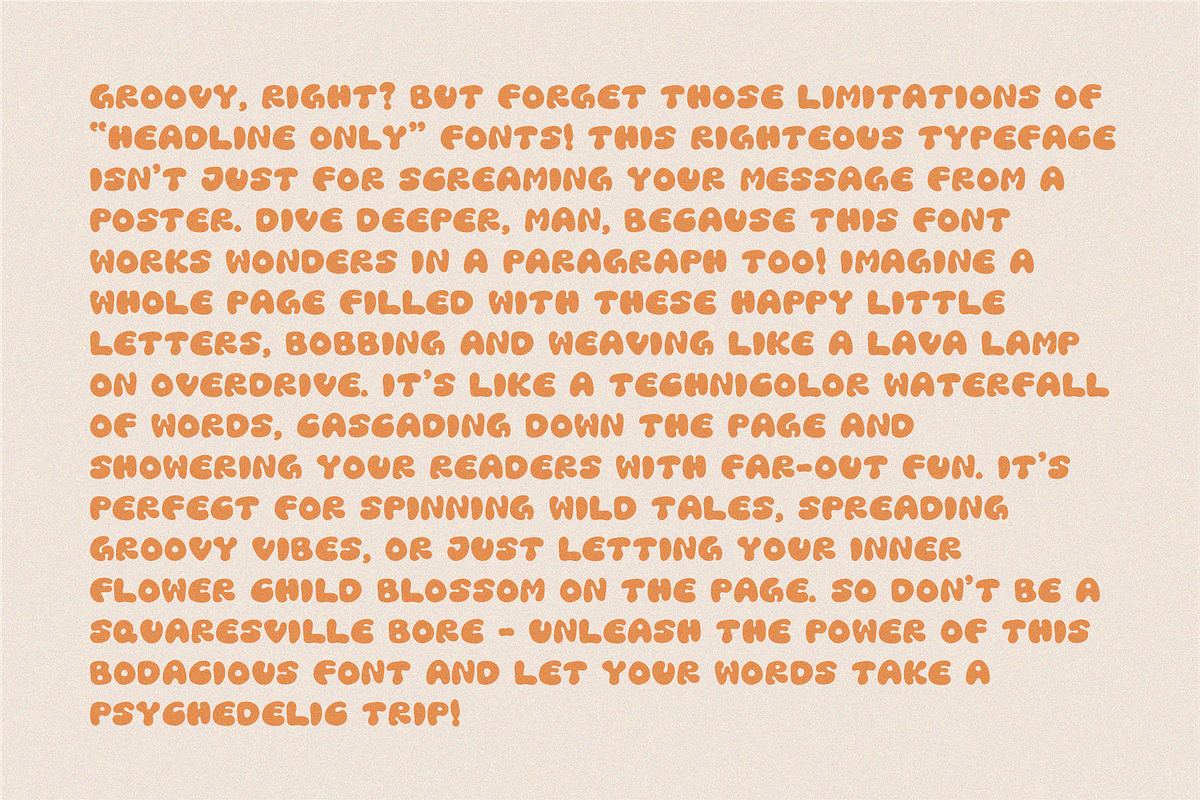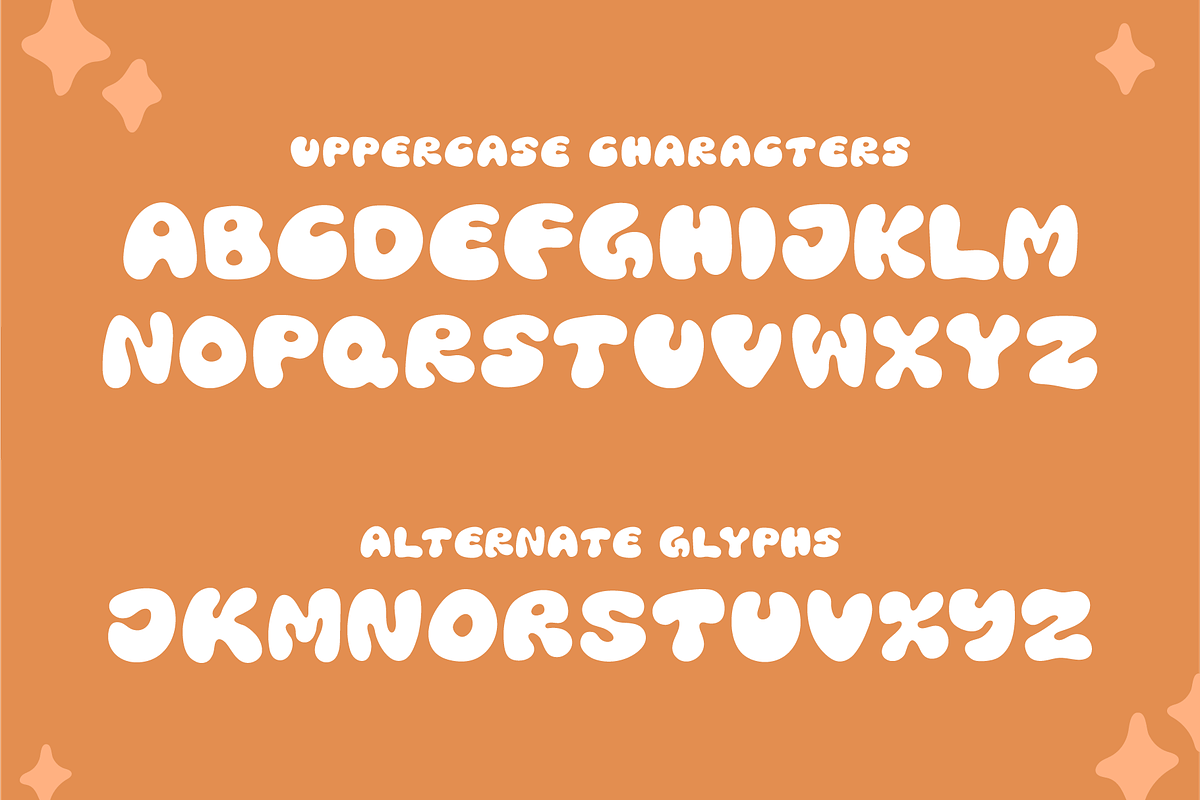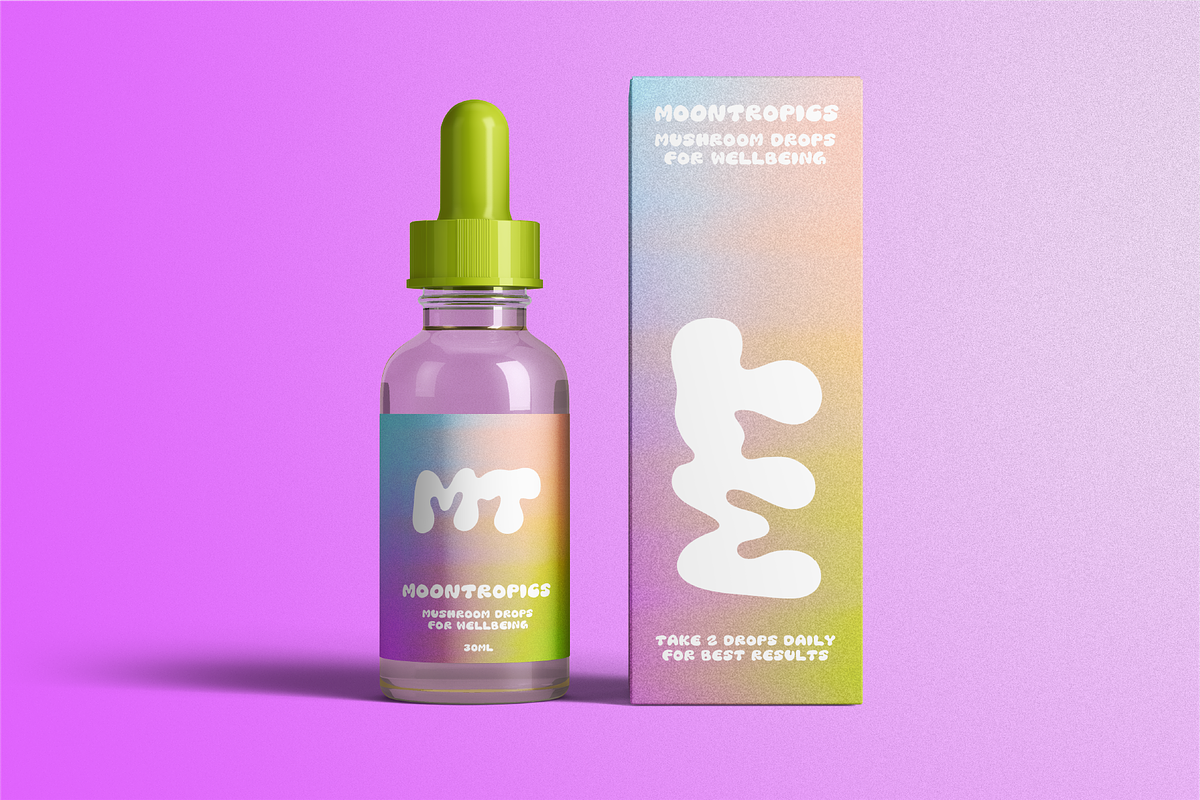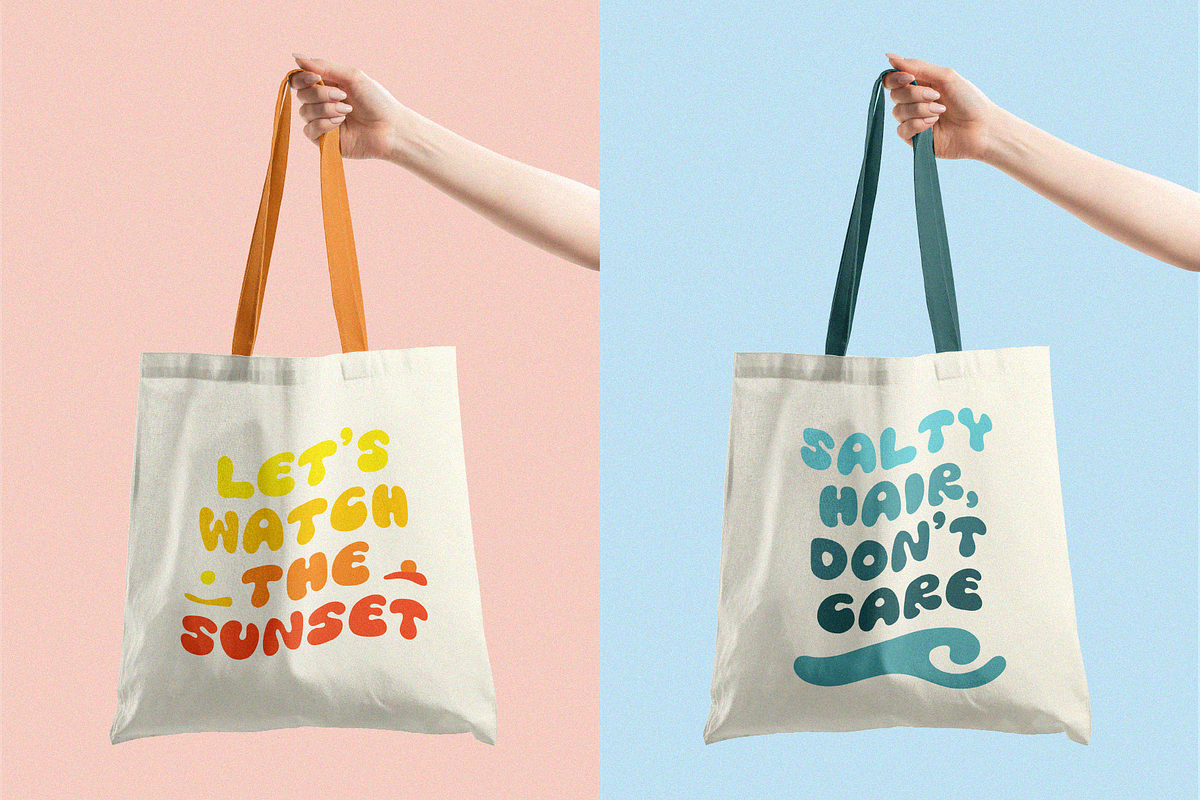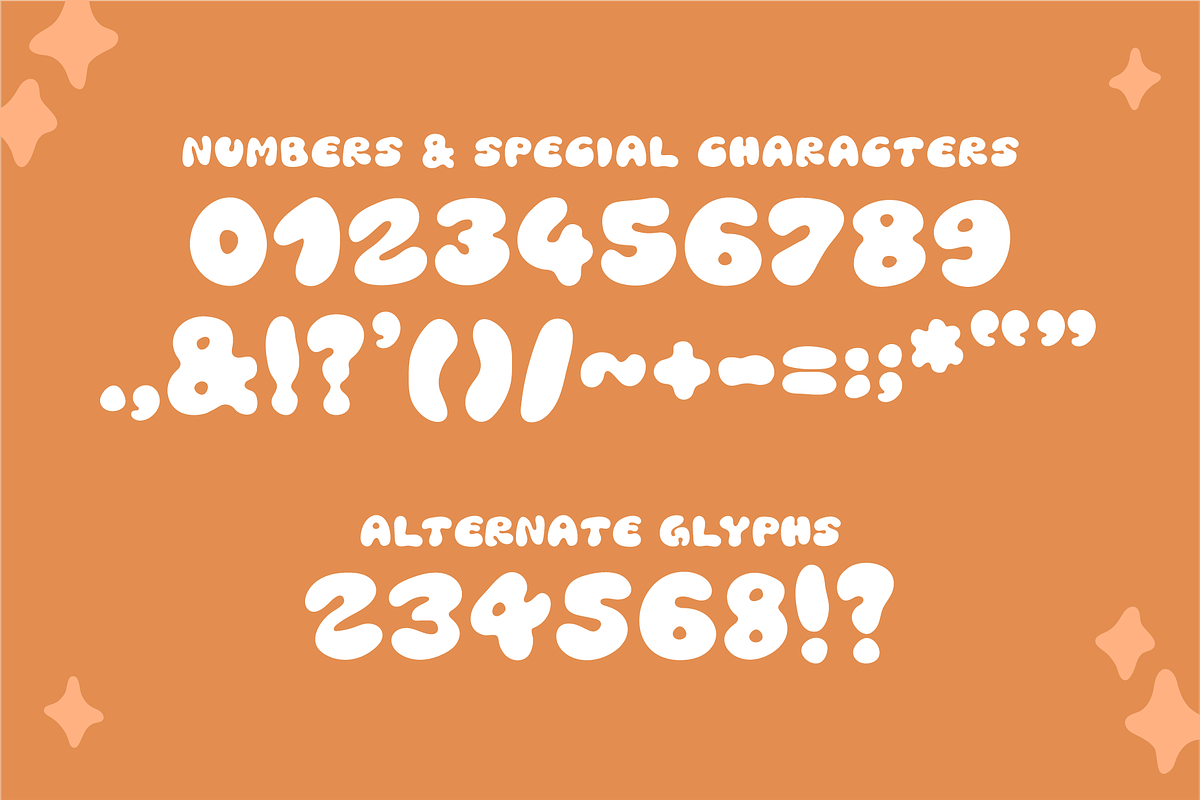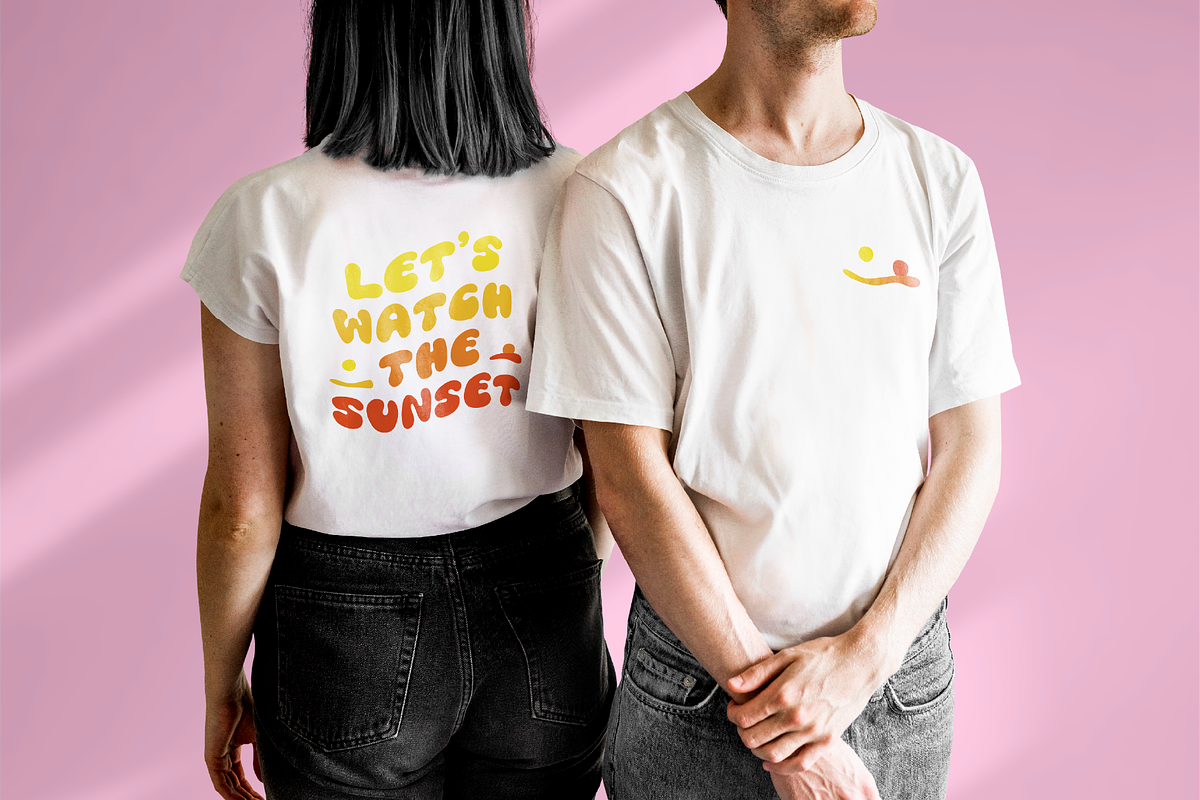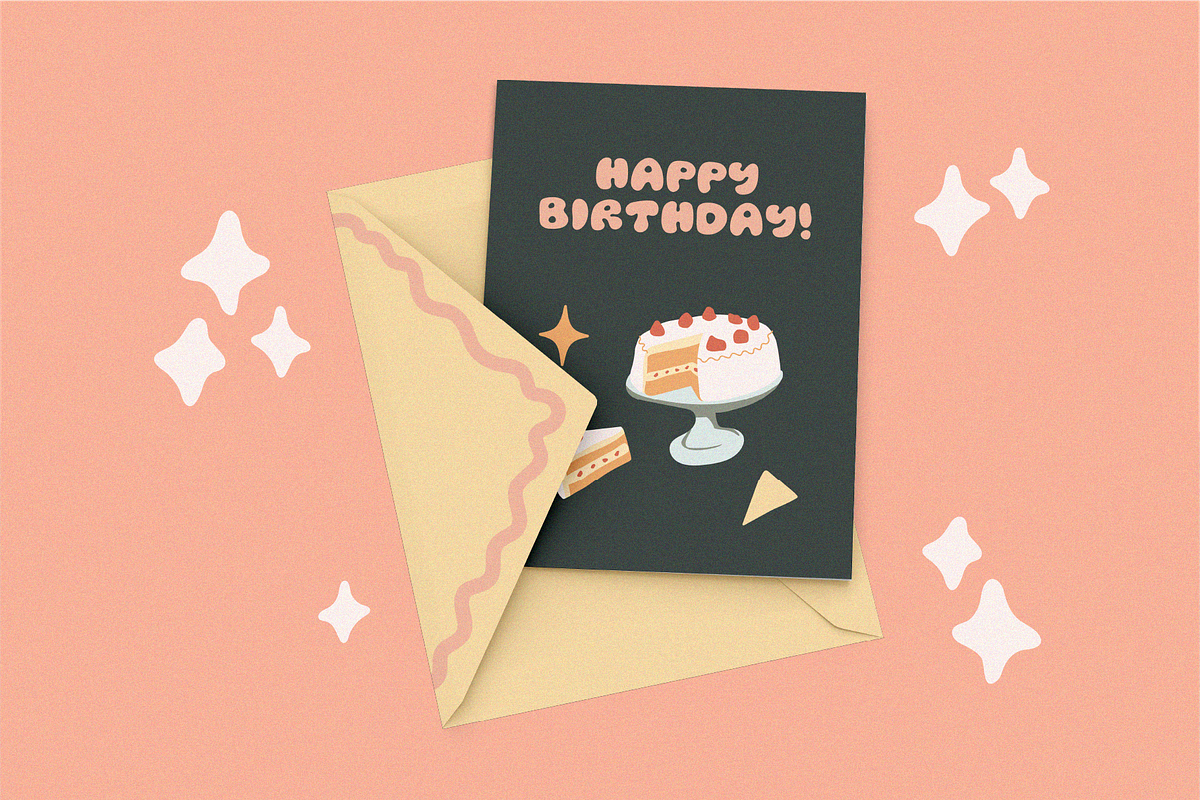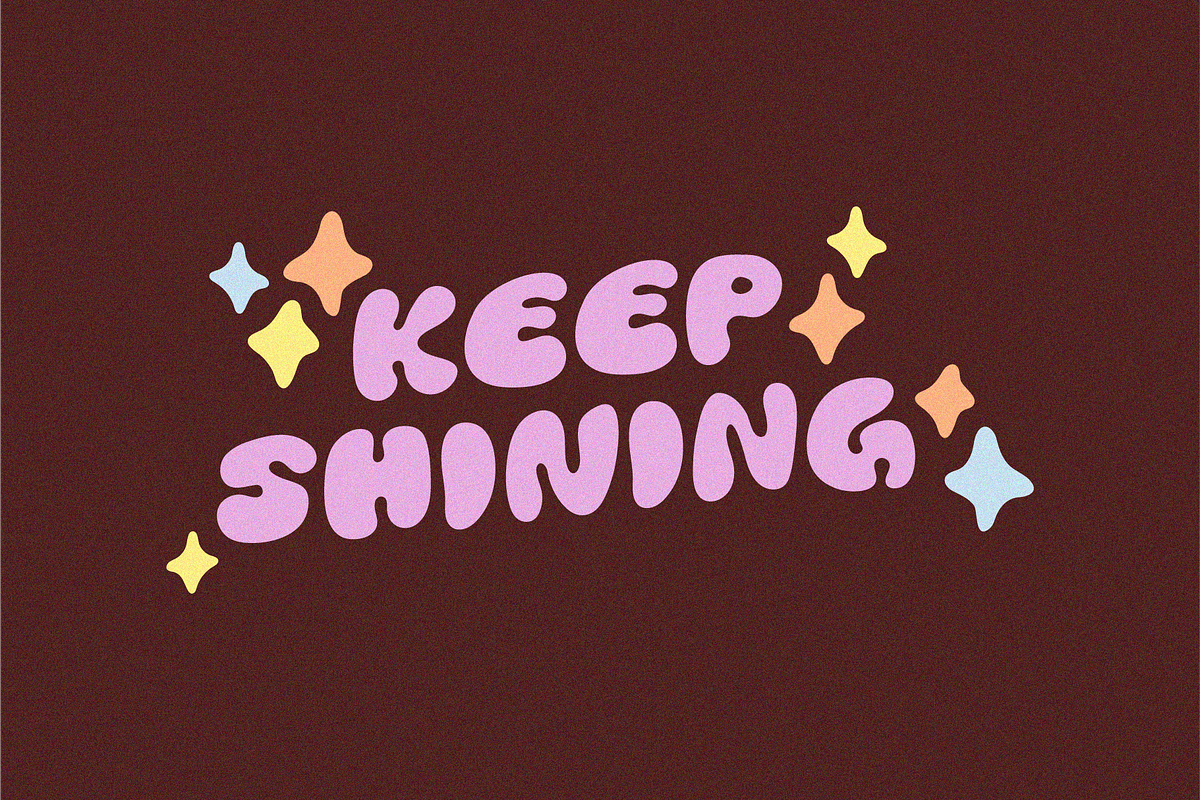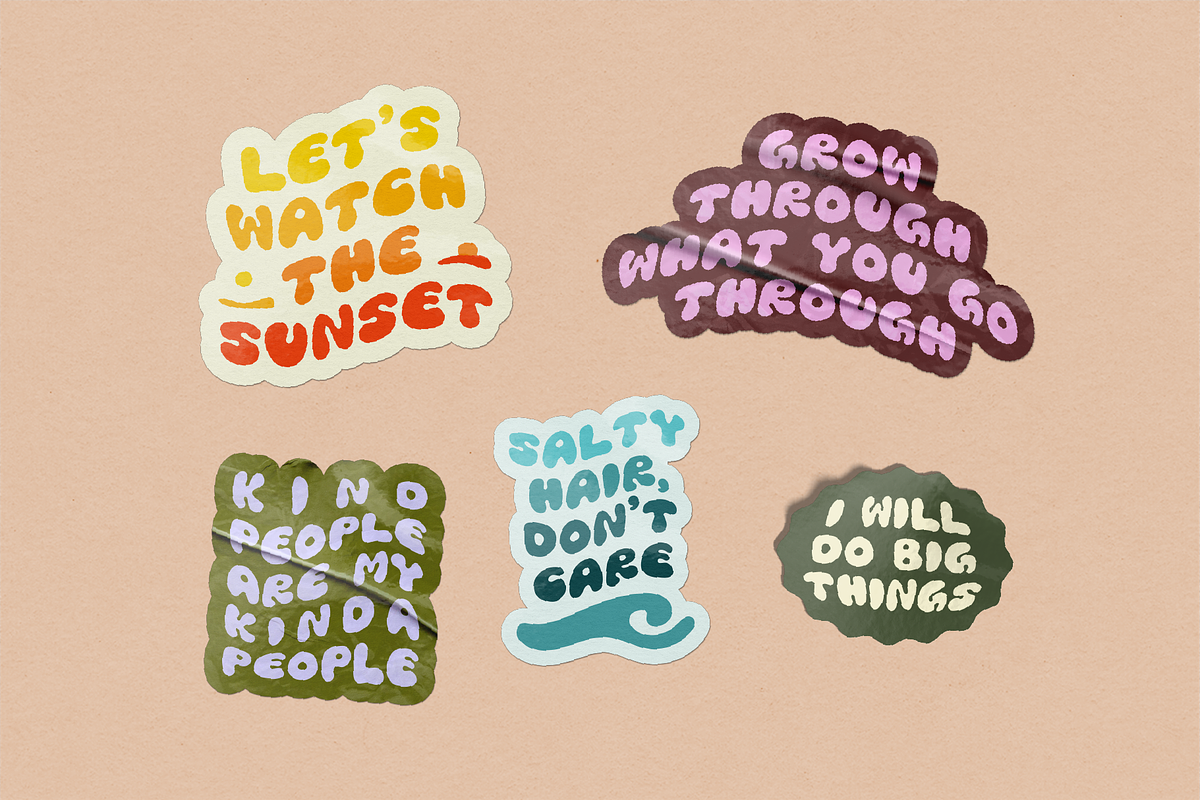
ZOOT Font — Funky & Bubbly Style
Say hiiii to the ZOOT font – this is a very funky, playful, retro, psychedelic & bubbly font! It's an uppercase font, with numbers & some special characters.
Perfect for branding, fun quotes to make stickers/posters/t-shirts, cards, invitations and more.
- Full UPPERCASE set of the standard alphabet
- Numbers 0-9
- 21 alternate glyphs
- Special characters: .,&!?'"()/~+-=:;*